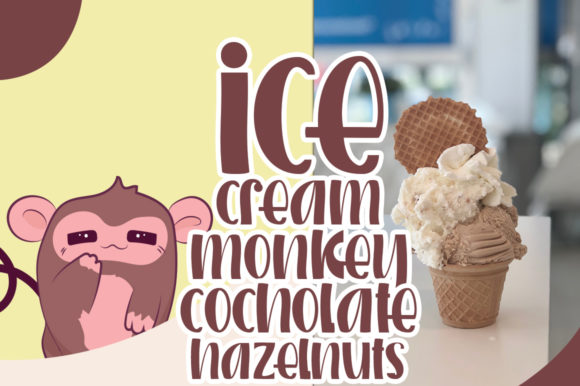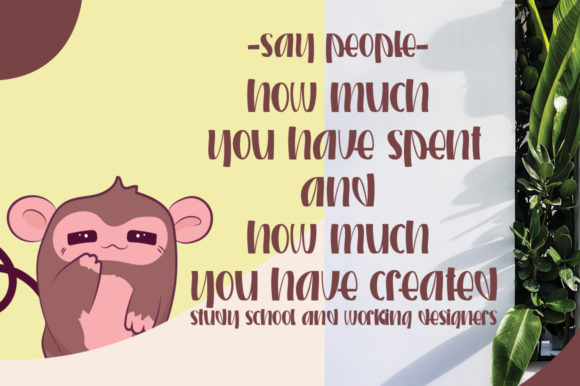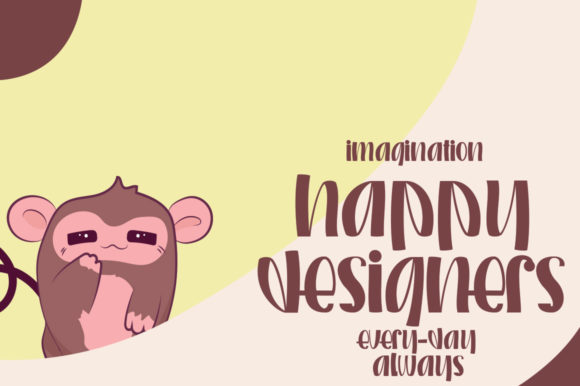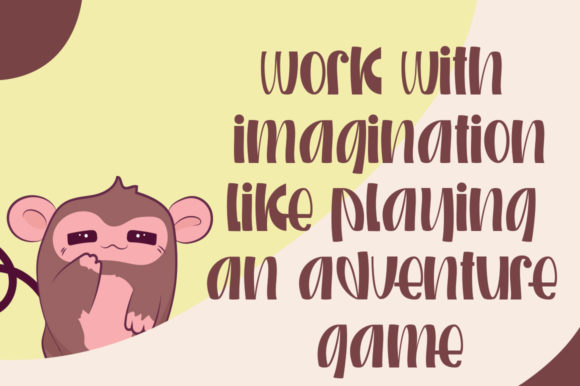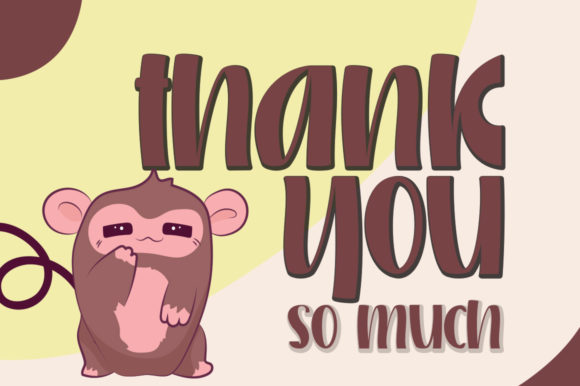
Monkey Alone Font
About Monkey Alone Font
Monkey Alone embodies fun, quirkiness and authenticity. This enchanting handwritten font will turn any creative idea into a true standout. Get creative with its playfulness feel, and use it to brighten up any crafting project!